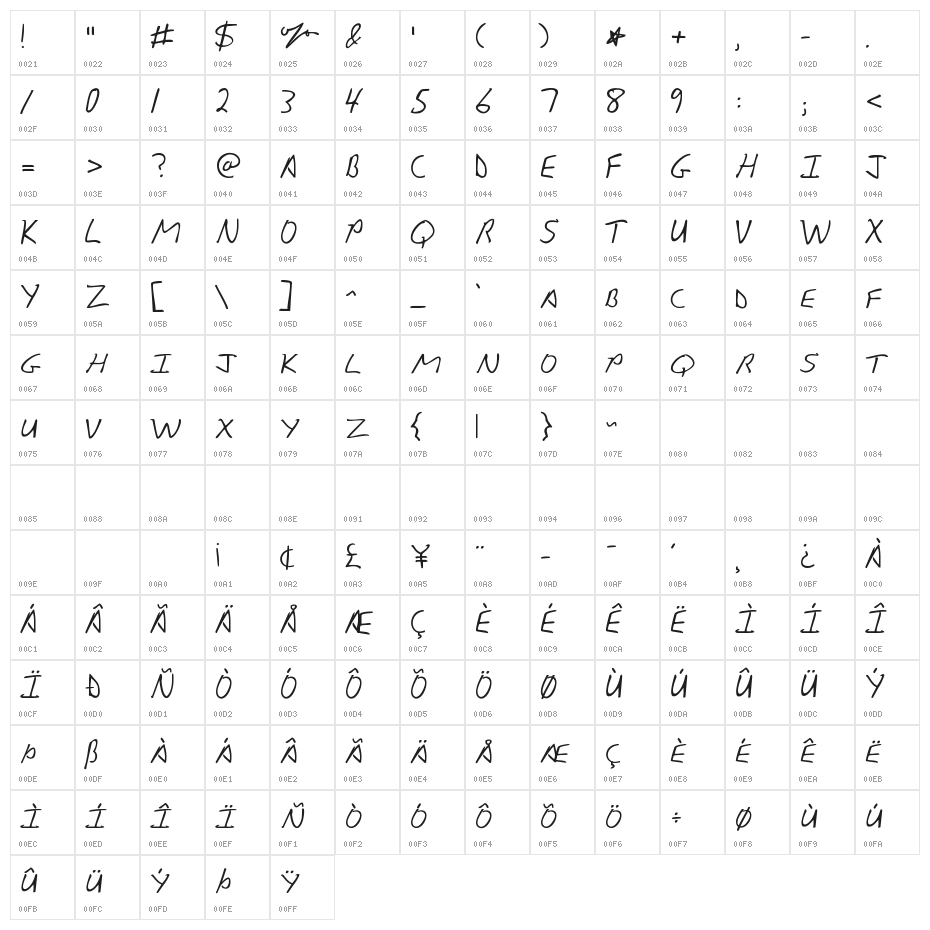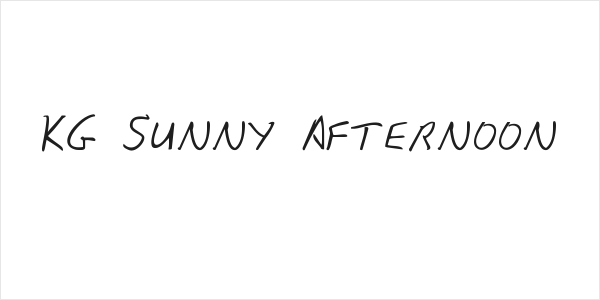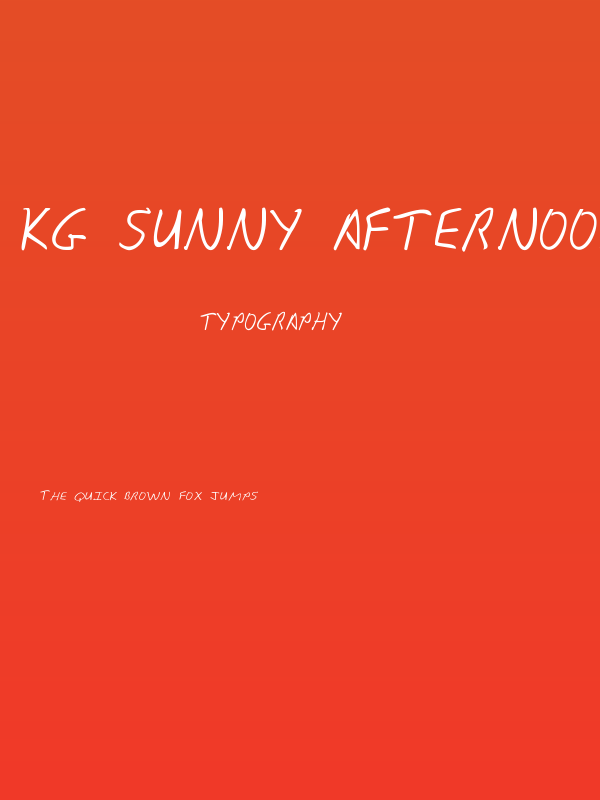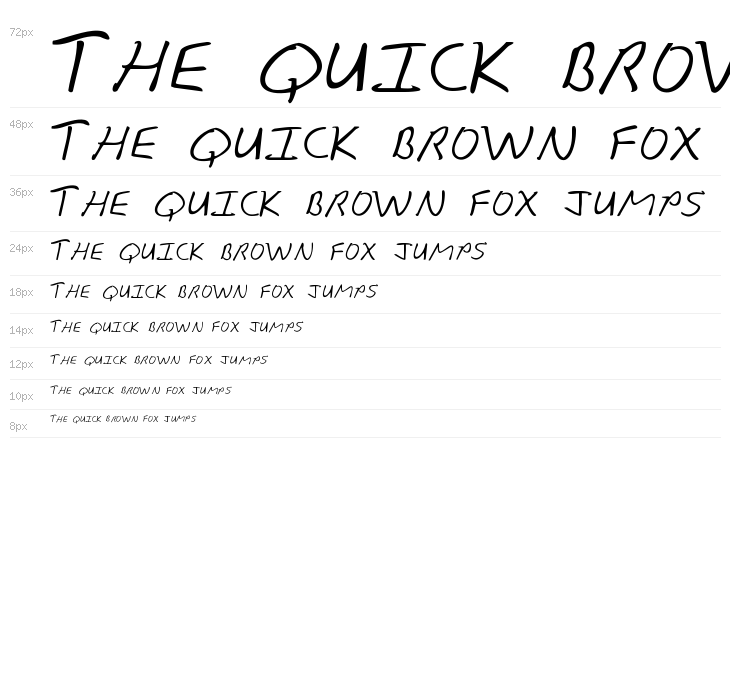
KG Sunny Afternoon Font
KG Sunny Afternoon Description
This font features a playful and casual handwritten style, reminiscent of a carefree afternoon. The characters are slightly slanted, giving a dynamic and lively feel. Each letter has a unique, organic flow, with varying stroke thickness that adds to its charm. The uppercase and lowercase letters maintain a consistent style, while the numbers and special characters blend seamlessly with the overall design. The font's informal nature makes it perfect for projects that require a personal touch.
| Use Case | Headlines, Informal Text, Personal Projects |
| Proposed Projects | Ideal for greeting cards, personal invitations, casual branding, and social media graphics. |